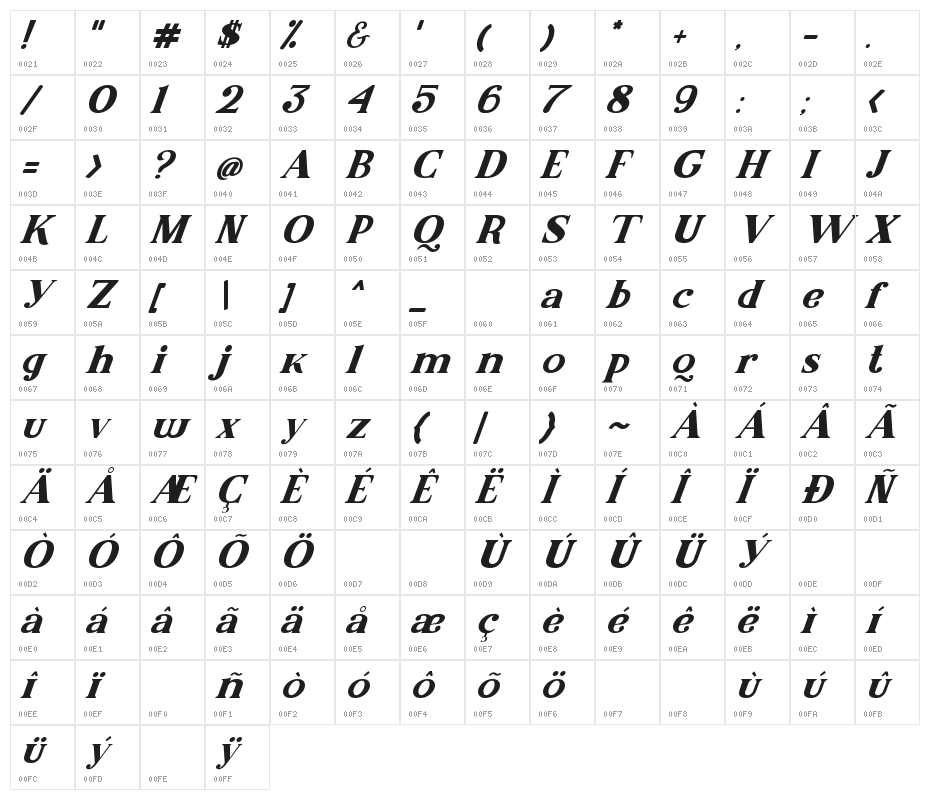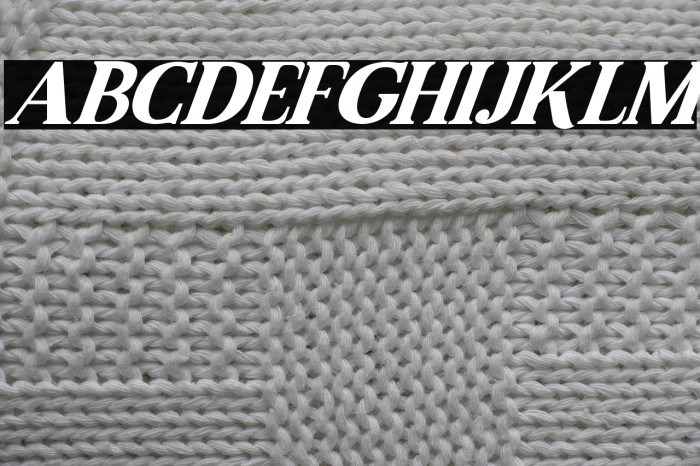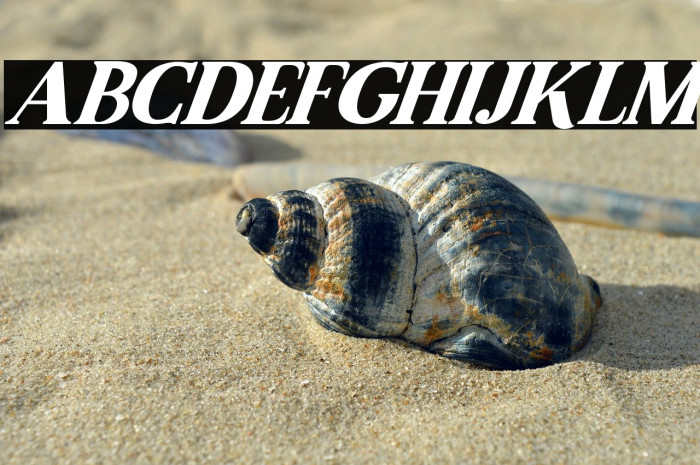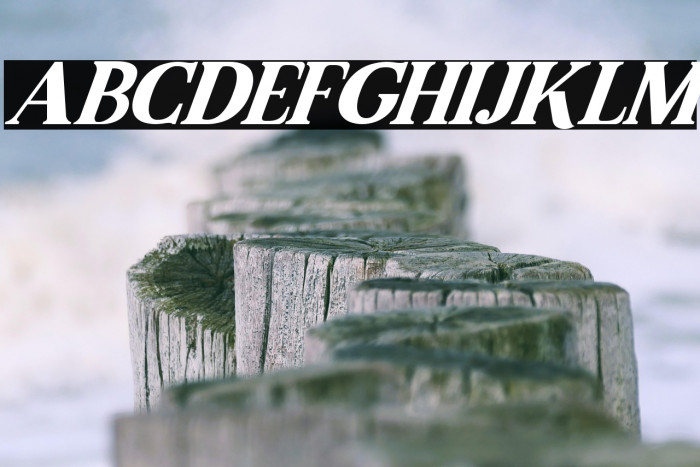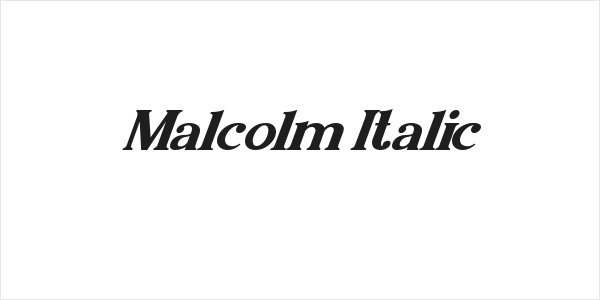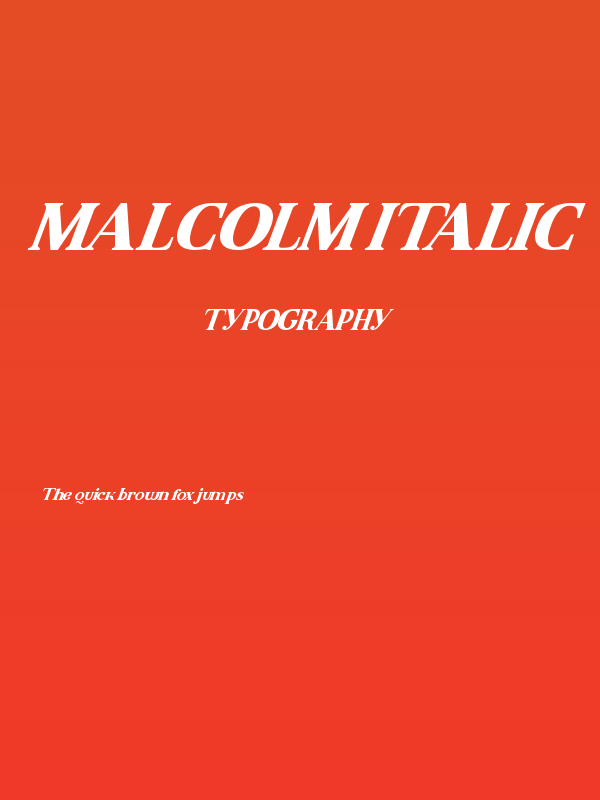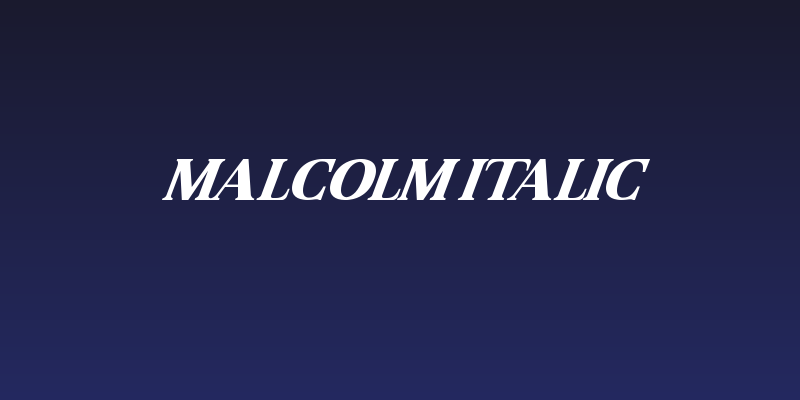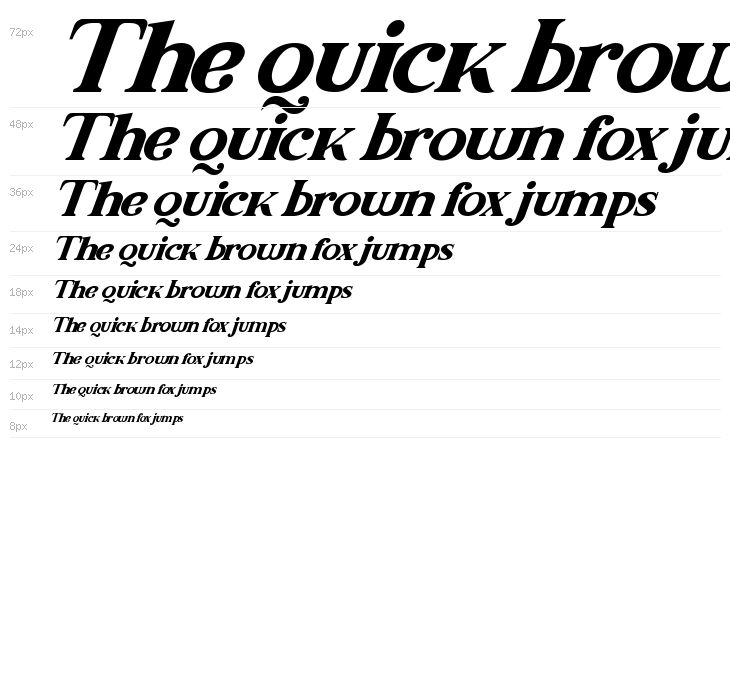
Malcolm Italic Font
Malcolm Italic Description
This font exudes a classic elegance with its italicized form, characterized by smooth, flowing lines and a slight slant to the right. The serifs are pronounced, adding a touch of sophistication and traditional appeal. The uppercase letters are bold and commanding, while the lowercase letters maintain a graceful continuity. The numerals are distinct and easily readable, complementing the overall style. Special characters are well-integrated, maintaining the font's cohesive look. This font is ideal for projects that require a touch of class and readability.
| Proposed Projects | Ideal for formal invitations, elegant branding, book covers, and editorial design. |